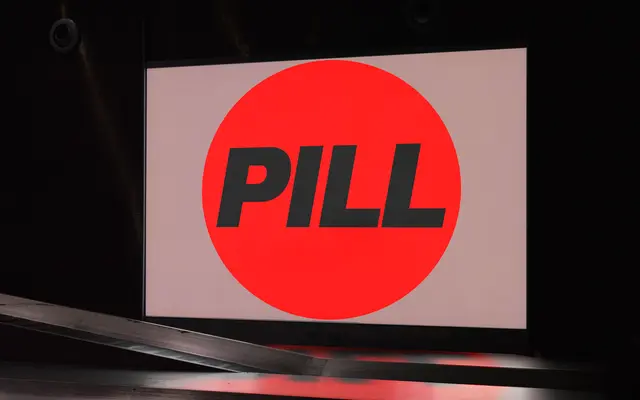
A humanist sans with squarish geometry and classical proportions, offered in nine weights with italics and a variable font.
Combining humanist letter construction with subtle squarish geometry, this typeface achieves a clean, linear quality across nine weights from Thin to Black with matching italics. The design was developed across six masters to maintain rhythmic balance through the weight range, and version 2.0 brought improved OpenType features and better screen performance. Over 600 characters cover Western, Southern and Central European languages, with six numeral variants and alternate lowercase forms for a and e.
Described explicitly as a humanist sans-serif with subtle squarish geometry and classical proportions, placing it firmly in the humanist sans subcategory.